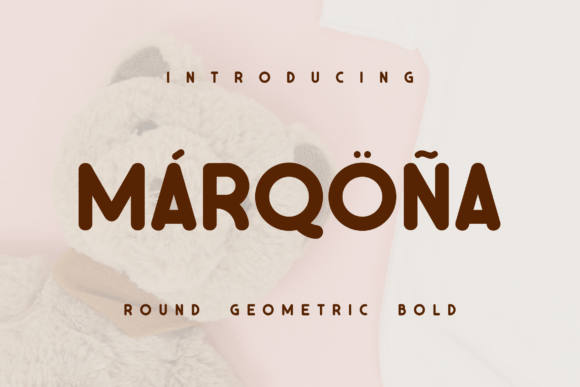
Introducing Marqona Font: The Font That Embraces Empathy and Invites Connection
In a world saturated with digital content, standing out amidst the noise requires a unique voice. Marqona Font, a creation of Monoletter, is not just a font; it's an expression of character, a conduit of emotions, and a catalyst for connection.
Marqona's sans serif design exudes approachability, radiating positivity like a warm embrace. Its rounded characters and smooth curves evoke a sense of comfort and welcome, inviting readers to immerse themselves in your content.
This versatile font shines in both display and body text, making it an ideal choice for branding, packaging, and web design. Its adaptability extends to diverse applications, from creating captivating logos and headlines to crafting informative articles and engaging social media posts.
Marqona's strength lies in its versatility, effortlessly transitioning from playful and lighthearted to sophisticated and elegant. It's a font that adapts seamlessly to your creative vision, adding a touch of warmth and friendliness to any project.
Choose Marqona Font and watch your designs blossom with a charm that captivates and connects. Let your words dance with grace and empathy, inviting readers to embark on a sensory journey where emotions flow freely.